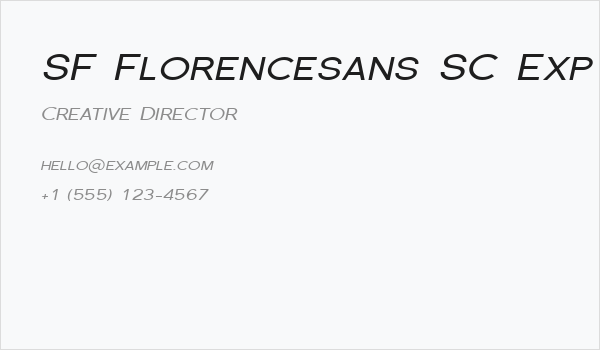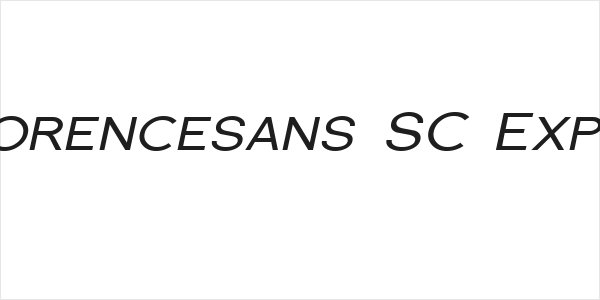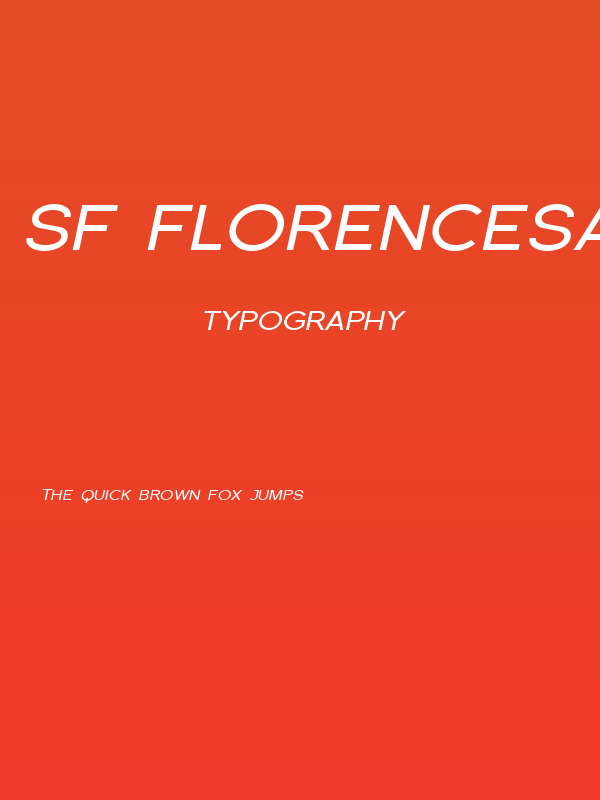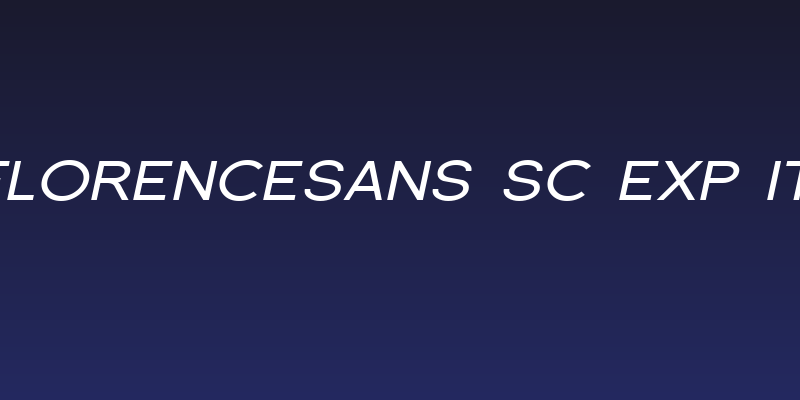
SF Florencesans SC Exp Italic Font
SF Florencesans SC Exp Italic Description
This font features a sleek and modern sans-serif style with an italic slant, giving it a dynamic and forward-moving appearance. The characters are clean and well-defined, with a slight expansion in width that adds to its contemporary feel. The uppercase and lowercase letters maintain a consistent design, ensuring readability and uniformity. Numbers are clear and distinct, while the special characters are crafted to match the overall aesthetic. The font's design is versatile, making it suitable for a variety of applications where a modern and professional look is desired.